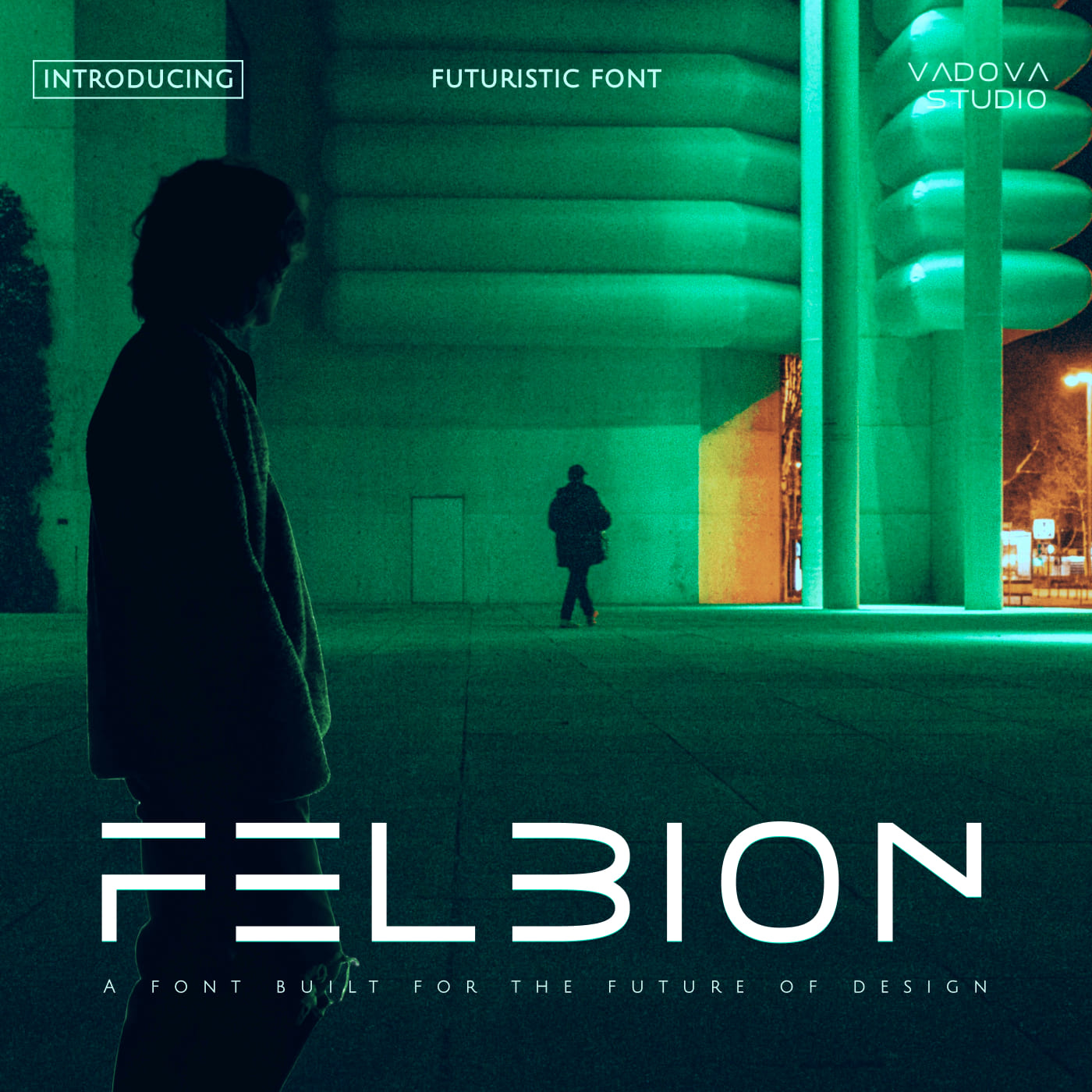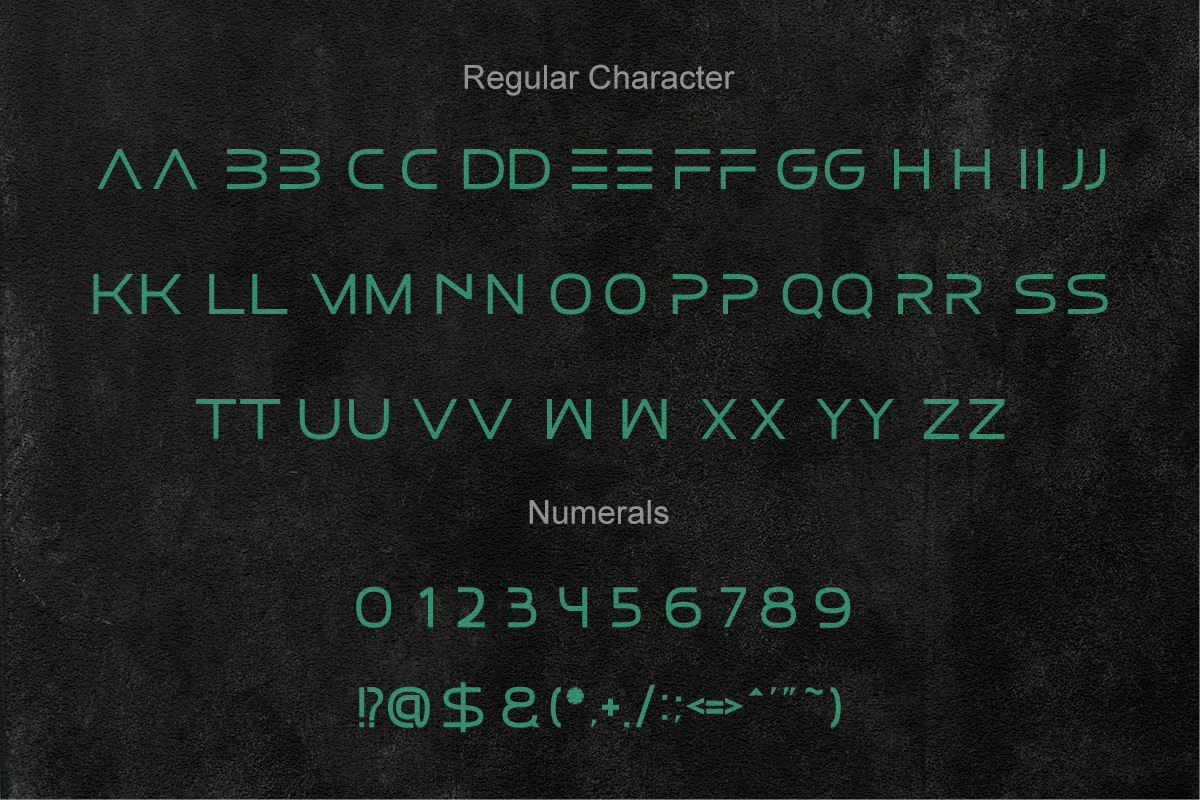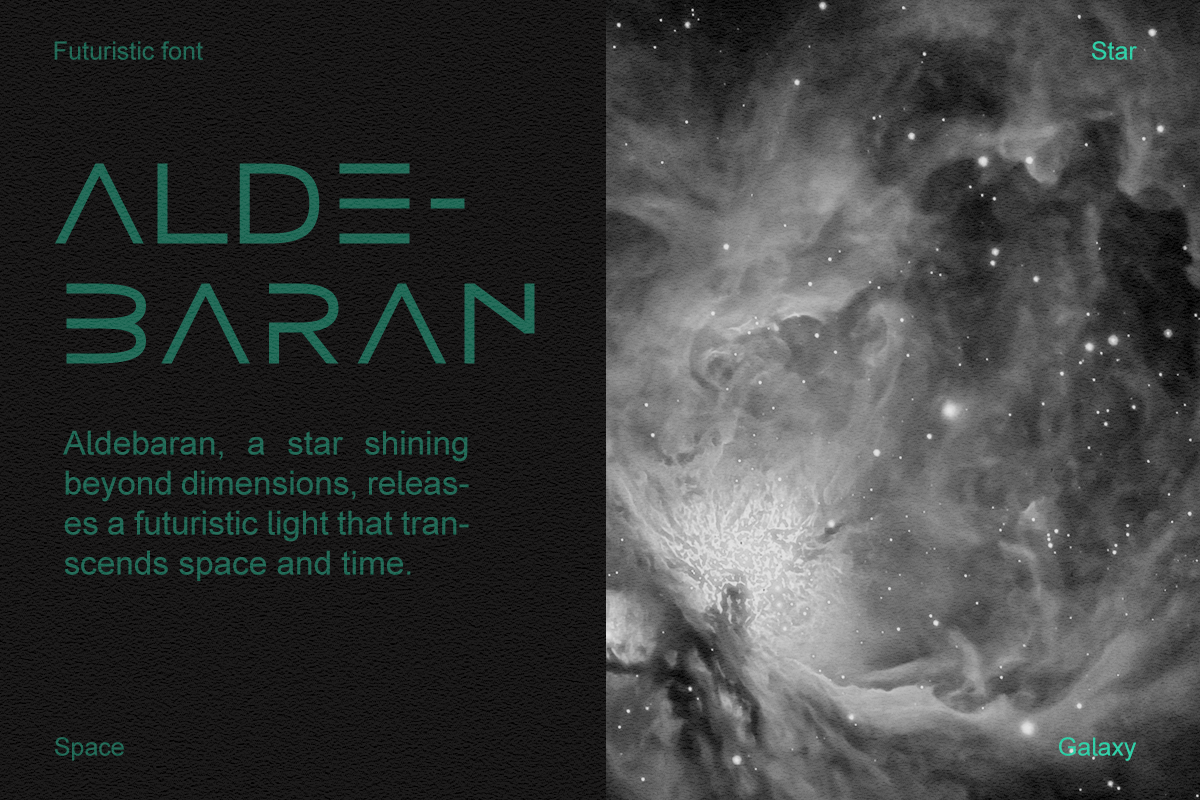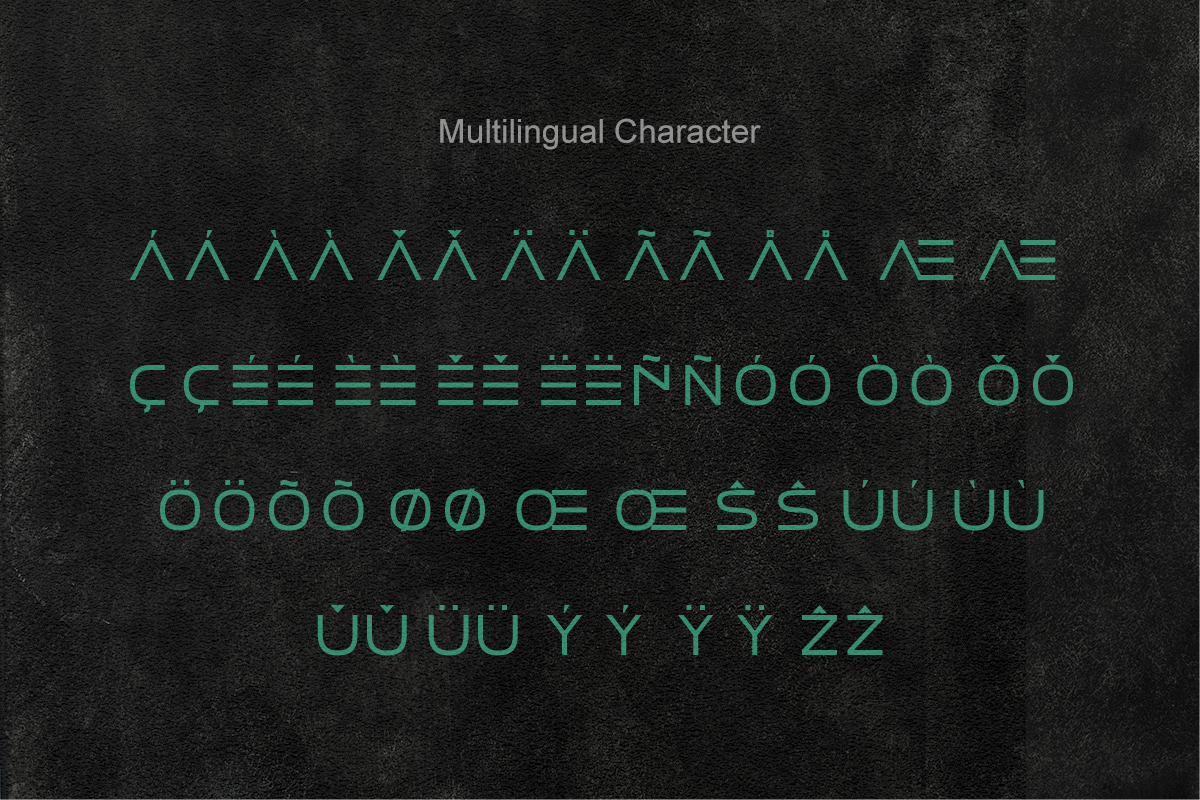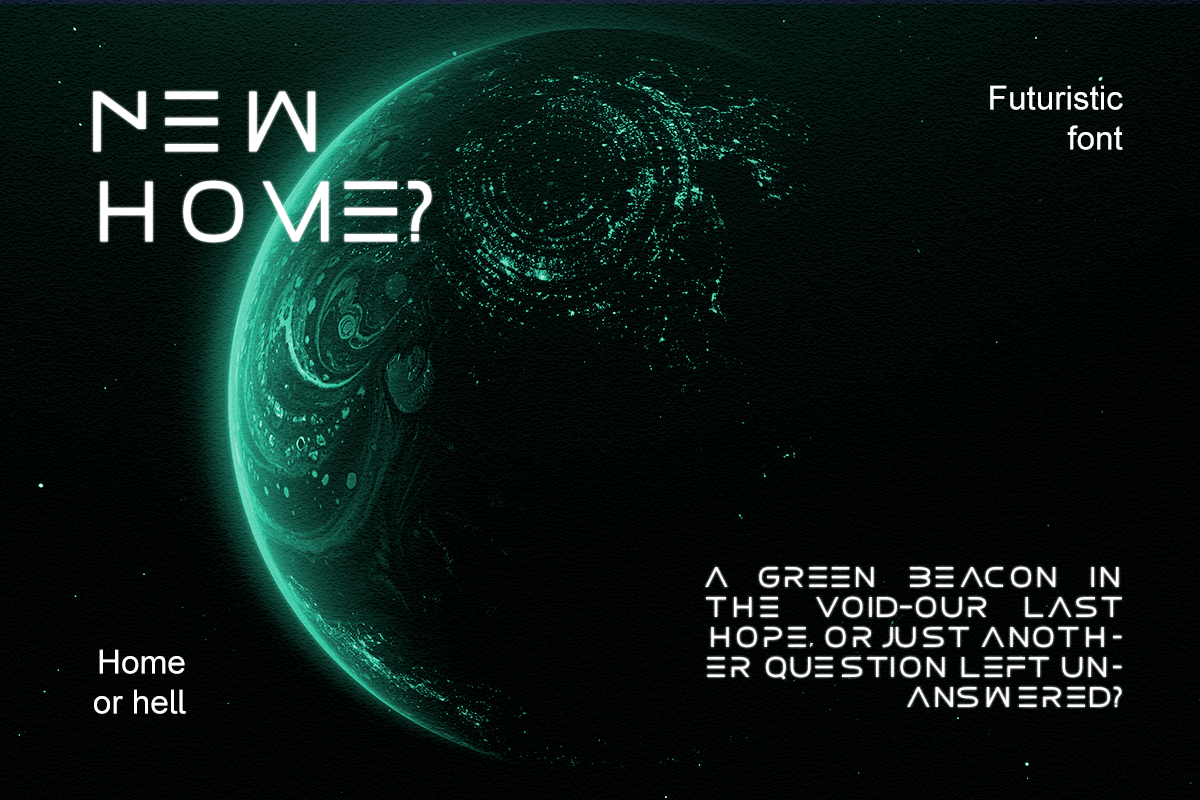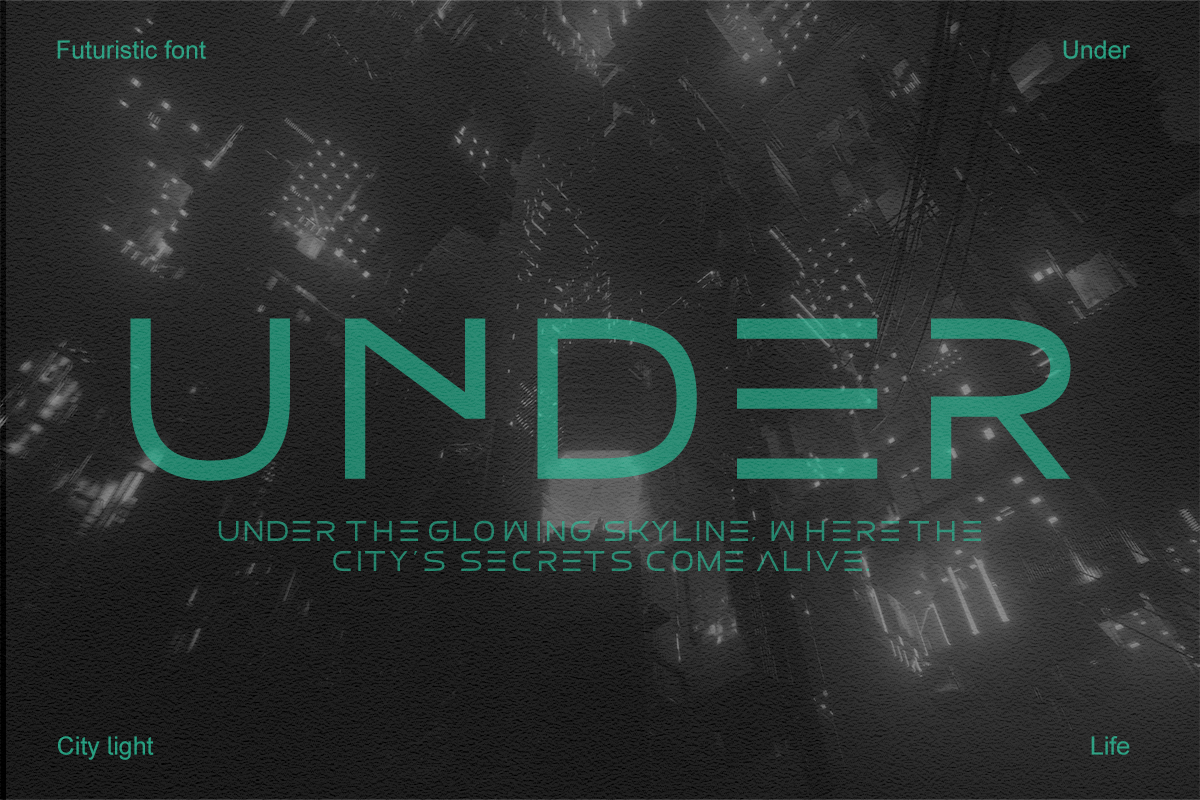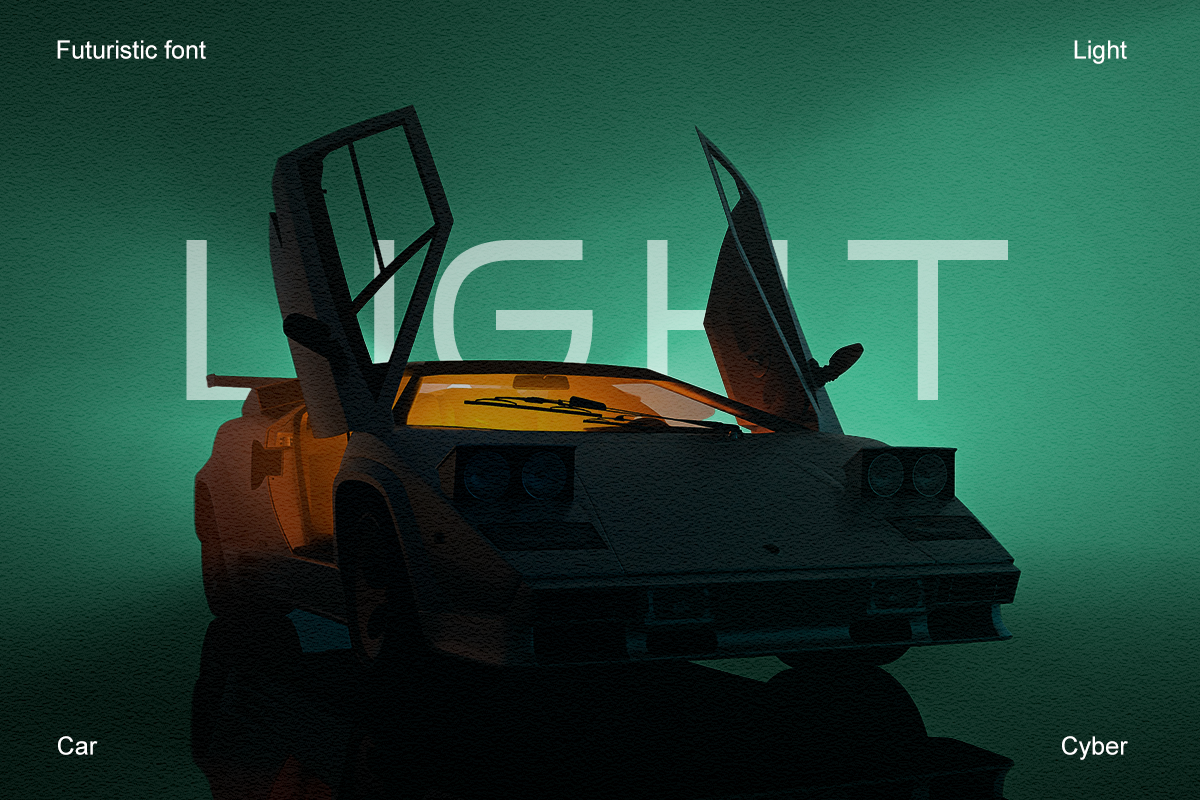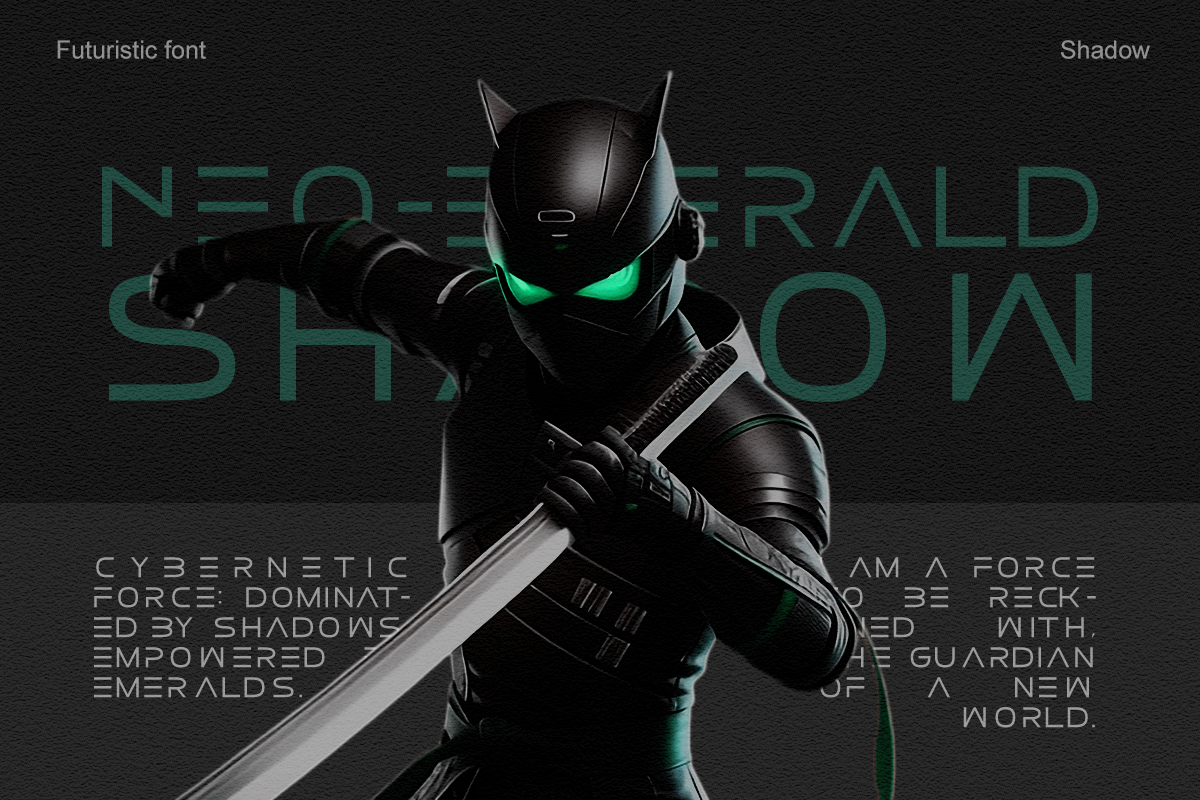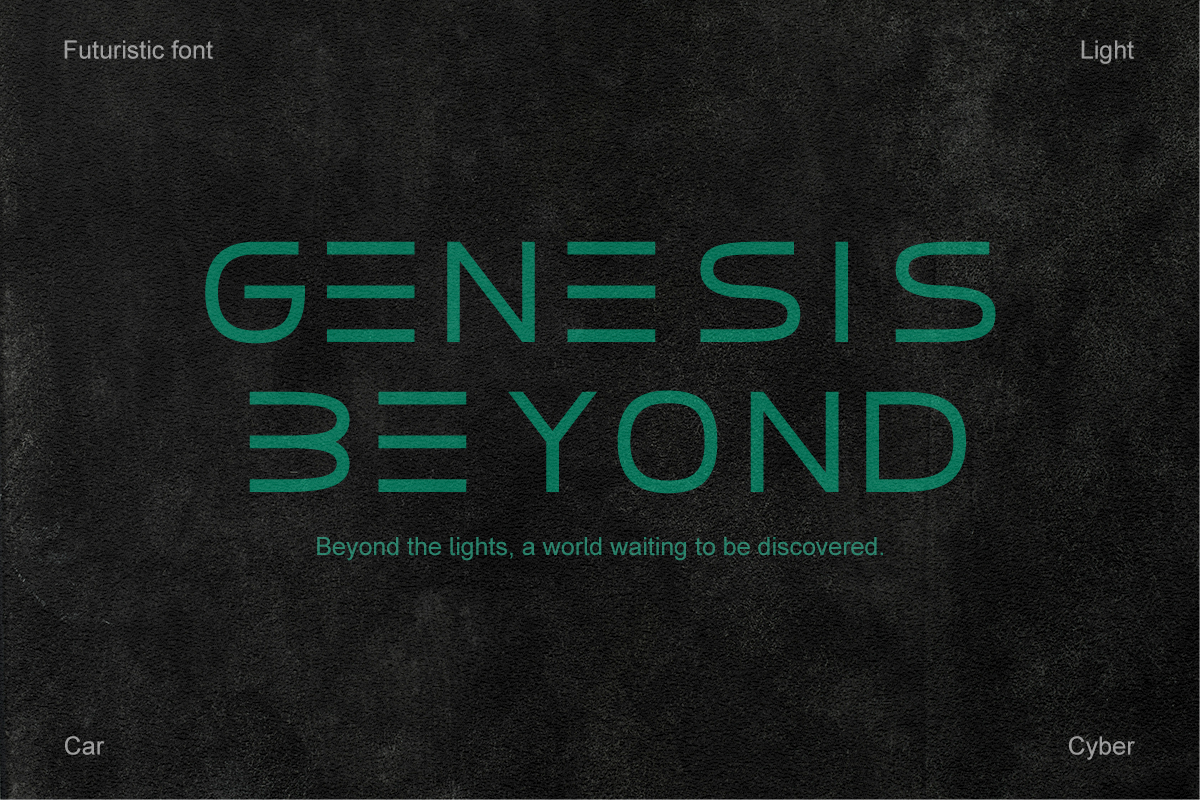
Felbion Futuristic Font
Felbion is a bold futuristic typeface designed for sci-fi storytelling, space-themed visuals, and digital-forward branding. Its clean geometry, sharp edges, and high-tech aesthetic make it ideal for game titles, cinematic posters, UI/UX interfaces, and concept-driven projects. With multilingual support and a cybernetic vibe, Felbion delivers clarity and visual intensity for creators aiming to design beyond Earth’s horizon. It’s the perfect font to launch your next cosmic or futuristic vision.
Felbion is a bold futuristic typeface featuring clean geometry and sharp edges, available in TTF, OTF, and WOFF formats. It includes uppercase and lowercase characters, numerals, punctuation, and multilingual support.